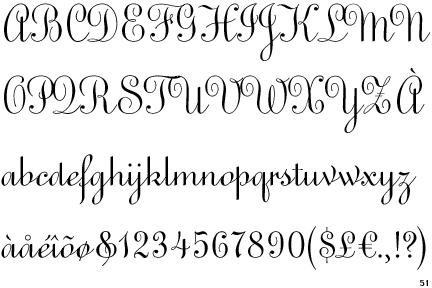
47+ Sweet Upright Script Font Free Best Fonts. Fonts are available in truetype, opentype. Sweet upright script is the first release for sweet fonts collection, published by mvb fonts. Similar free fonts for simply sweet script upright. ✓ click to find the best 145 free fonts in the upright script style. Download sweet upright script™ font, by sweet. Flamboyant and curvaceous, the playful script includes a large selection of alternate characters to choose from as well as natural looking ligatures to add to the authenticity of the lettering. Free fonts for commercial use · new & fresh fonts · most popular fonts · alphabetic fonts · largest font families · trending fonts. Looking for upright script fonts? Home script the simply sweet font duo. It is an interpreted revival of a vintage, social engraving lettering style that was popular during the 20th century. Buy this font online from Thousands of designers (famous or not) use the image font detection system to find a font or similar free fonts from an image. Every font is free to download! Mark van bronkhorst and linnea lundquist. Please check the license to see if you can use sweet upright script™ for commercial.
Identifont Sweet Upright Script. Fonts are available in truetype, opentype. Every font is free to download! Flamboyant and curvaceous, the playful script includes a large selection of alternate characters to choose from as well as natural looking ligatures to add to the authenticity of the lettering. Looking for upright script fonts? Sweet upright script is the first release for sweet fonts collection, published by mvb fonts. Thousands of designers (famous or not) use the image font detection system to find a font or similar free fonts from an image. Buy this font online from It is an interpreted revival of a vintage, social engraving lettering style that was popular during the 20th century. Mark van bronkhorst and linnea lundquist. ✓ click to find the best 145 free fonts in the upright script style. Please check the license to see if you can use sweet upright script™ for commercial. Similar free fonts for simply sweet script upright. Home script the simply sweet font duo. Download sweet upright script™ font, by sweet. Free fonts for commercial use · new & fresh fonts · most popular fonts · alphabetic fonts · largest font families · trending fonts.
It is probably the first digital version of the design.
309 Free Elegant Script Fonts 1001 Fonts. Fonts are available in truetype, opentype. It is an interpreted revival of a vintage, social engraving lettering style that was popular during the 20th century. Flamboyant and curvaceous, the playful script includes a large selection of alternate characters to choose from as well as natural looking ligatures to add to the authenticity of the lettering. Mark van bronkhorst and linnea lundquist. Looking for upright script fonts? Similar free fonts for simply sweet script upright. Sweet upright script is the first release for sweet fonts collection, published by mvb fonts. Download sweet upright script™ font, by sweet. ✓ click to find the best 145 free fonts in the upright script style. Every font is free to download! Thousands of designers (famous or not) use the image font detection system to find a font or similar free fonts from an image. Buy this font online from Home script the simply sweet font duo. Free fonts for commercial use · new & fresh fonts · most popular fonts · alphabetic fonts · largest font families · trending fonts. Please check the license to see if you can use sweet upright script™ for commercial.